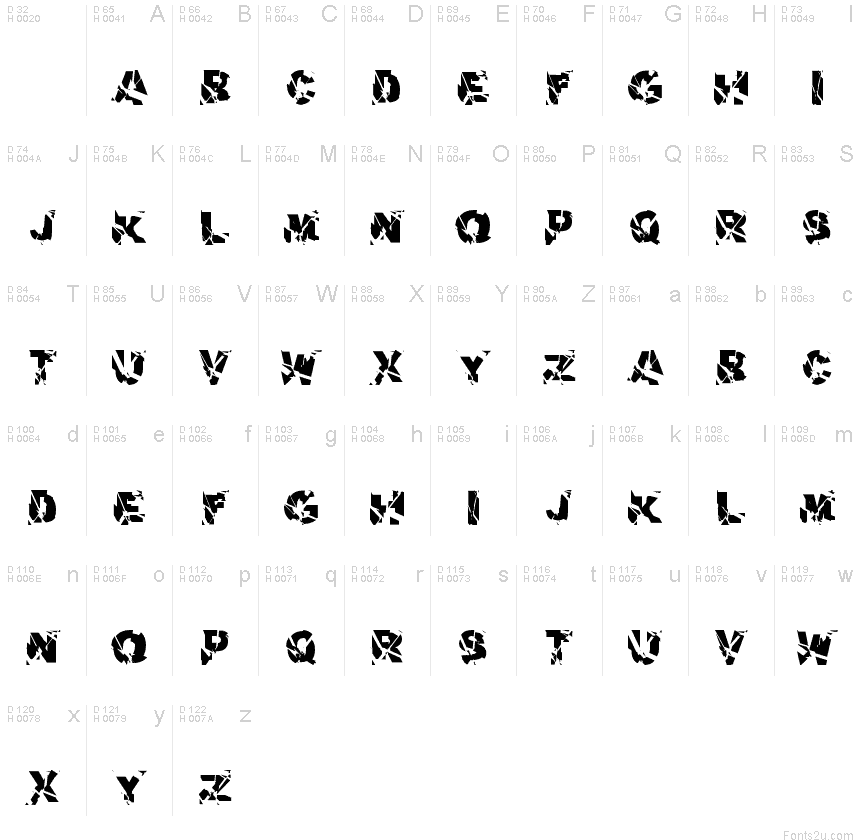
Aerial Demented by dker is a free graffiti font with packed capitals shattered by sharp fissures. Uneven fragments, abrupt cuts, and leaning edges make the lettering look like spray-painted forms breaking apart under impact.
It is strongest on music posters, album artwork, and streetwear graphics, where the fractured silhouettes suit punk, metal, or urban themes. In game promotions, the letters can become part of the artwork itself, resembling cracked signage or flying debris instead of neutral text.